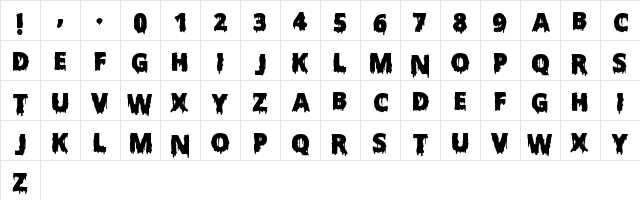
Scary Halloween Font Bold
Design Context for Scary Halloween Font Typeface
Scary Halloween Font carries an unsettling edge — its distorted letterforms are built to unsettle, perfectly suited to horror, Halloween, and dark creative work.
Ideal for Halloween projects, horror film titles, haunted house signage, and dark editorial design.
Font Pairing: Pair with a clean neutral sans-serif for body copy to let Scary Halloween Font's character lead without overwhelming the composition.
Pro Tip: Scary Halloween Font works best as a headline or focal element. Pair it against plain, neutral body text to amplify the contrast.